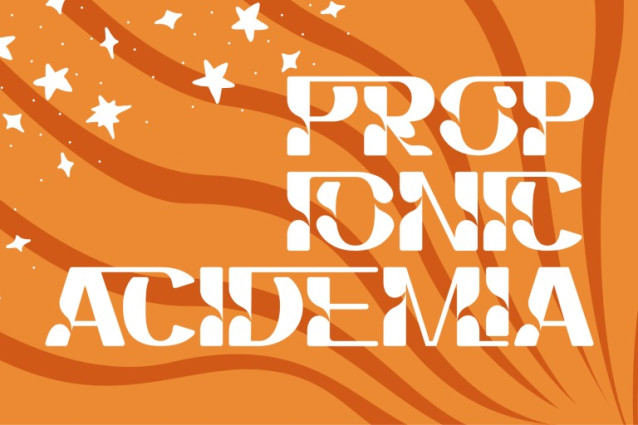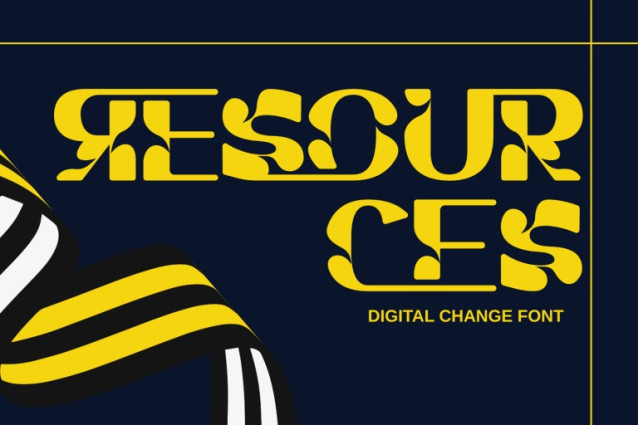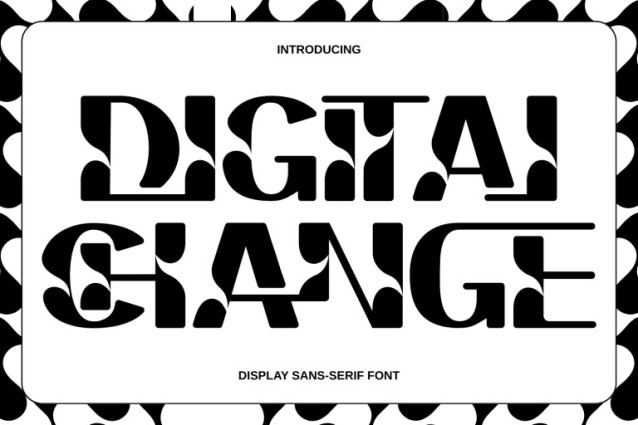
Digital Change Font
Digital Change – Display Font is a mesmerizing display font designed to make your headlines absolutely unforgettable. This typeface blends the expressive, groovy curves of the psychedelic era with a contemporary fluid and melting aesthetic. The key to Digital Change unique charm lies in its distinctive shapes: each character features luxurious, exaggerated curves and organic counter-forms that give the impression of a vibrant, ever-flowing design. It’s perfect for projects that demand a bold, retro-futuristic, or playfully expressive feel, such as album covers, fashion branding, vintage-inspired posters, or high-impact editorial titles.
🔤Font Features:
Complete Uppercase letters
Around 100 Special Ligatures
Accented characters for multilingual support
🔤About 100 ligatures combined with Stylistic Alternates Font:
AC AD AL AN AR AS AT AU AV BE CA CE CH CO CT DE DI EA EC ED EE EL EM EN EP ER ES ET FE FO FR GE HA HE HI HO IE IC IL IN IO IR IS IT JU KE LA LE LI LL LO LY MA ME MI NC ND NE NG NO NT NS OC OF OM ON OO OP OR OT OU OW PA PR RA RD RE RI RO RS RT SE SH SI SO SS ST TA TE TH TI TO TR TT UM UN UR VE WI WO